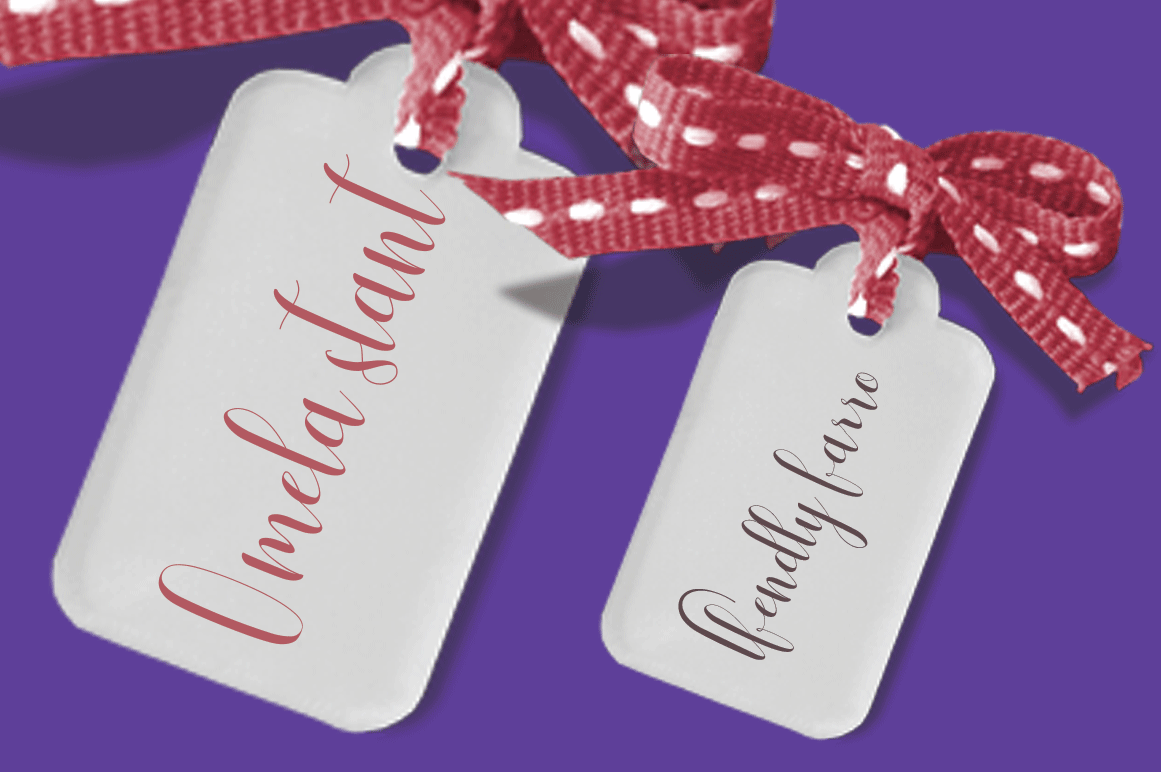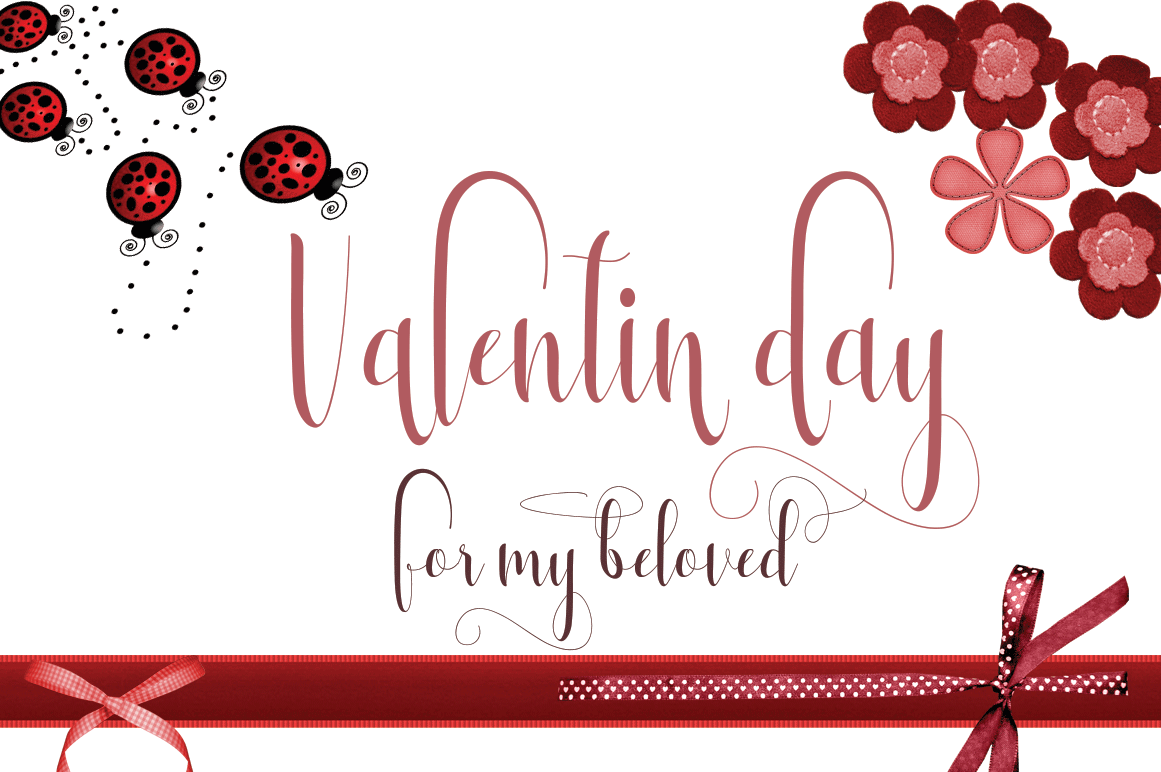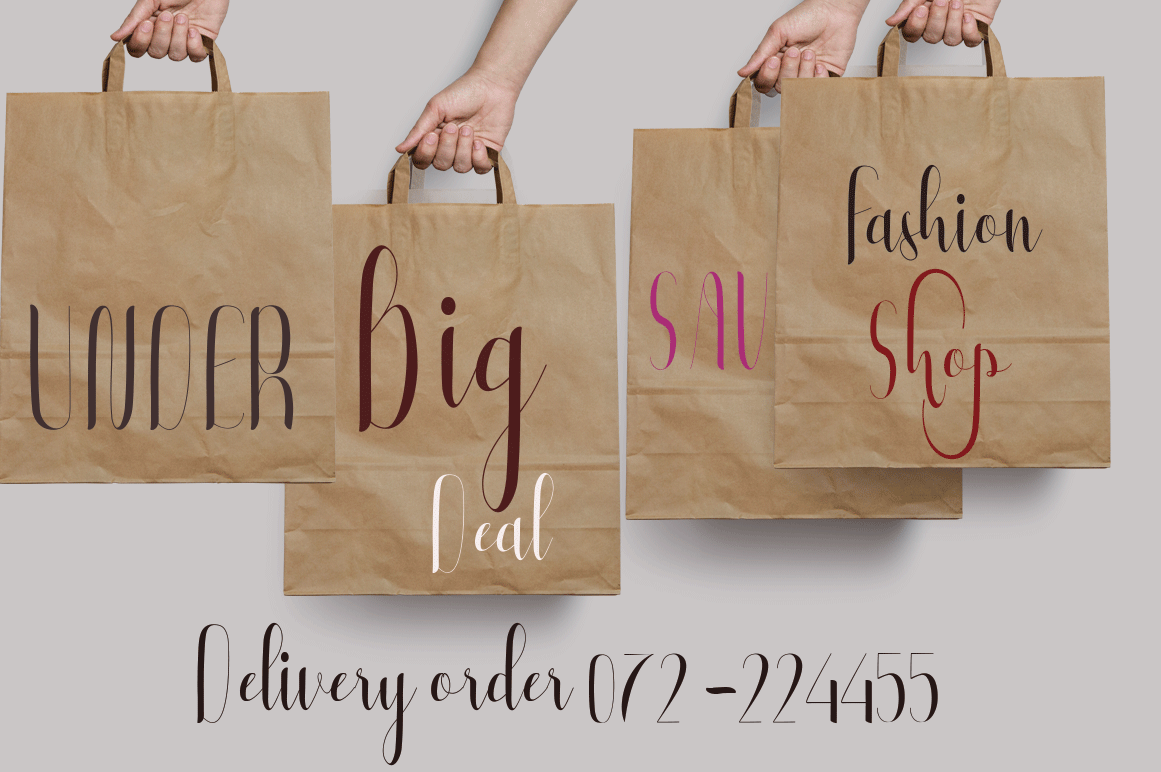
The Buffalo Font: A Smooth and Playful Typeface for Creative Projects
The buffalo font is a smooth, playful typeface that has gained popularity among designers and crafters for its unique and personal touch. This font features a wide range of alternate characters with swashes, making it an ideal choice for projects that require a creative and distinctive look.
What Makes the Buffalo Font Special?
The buffalo font stands out from other typefaces due to its smooth and playful design. The font features a range of alternate characters, including swashes, which add a touch of elegance and sophistication to any project. The swashes can be used to create a sense of movement and fluidity, making the font perfect for designs that require a dynamic and creative look.
Key Features of the Buffalo Font
- Alternate Characters: The buffalo font features a wide range of alternate characters, including swashes, which can be used to add a personal touch to any project.
- Smooth and Playful Design: The font has a smooth and playful design, making it perfect for creative projects that require a distinctive look.
- Elegant Swashes: The swashes in the buffalo font are elegant and sophisticated, adding a touch of luxury to any project.
- Multi-Language Support: The buffalo font supports multiple languages, making it a great choice for designers and crafters who work on international projects.
The buffalo font is perfect for a wide range of creative projects, including:
- Branding and Logo Design: The buffalo font can be used to create unique and memorable logos that stand out from the competition.
- Stationery and Invitations: The font can be used to create elegant and sophisticated stationery and invitations that make a lasting impression.
- Packaging Design: The buffalo font can be used to create eye-catching packaging designs that showcase a brand’s personality and style.
- Digital Design: The font can be used in digital designs, such as website headers, social media graphics, and more.
Tips for Using the Buffalo Font
Here are some tips for using the buffalo font in your creative projects:
- Use it Sparingly: The buffalo font is a bold and playful typeface, so it’s best to use it sparingly to avoid overwhelming the design.
- Experiment with Swashes: The swashes in the buffalo font can add a touch of elegance and sophistication to any project, so experiment with different swash combinations to find the one that works best for your design.
- Pair it with Other Fonts: The buffalo font can be paired with other fonts to create a unique and interesting design, so experiment with different font combinations to find the one that works best for your project.
The buffalo font is a smooth, playful typeface that is perfect for creative projects that require a personal touch. With its wide range of alternate characters and elegant swashes, this font is sure to add a touch of sophistication and elegance to any design. Whether you’re a designer or crafter, the buffalo font is a great choice for any project that requires a distinctive and creative look.
Get Creative with the Buffalo Font
If you’re looking for a font that will add a personal touch to your creative projects, look no further than the buffalo font. With its smooth and playful design, elegant swashes, and wide range of alternate characters, this font is sure to inspire your creativity and help you create unique and memorable designs.